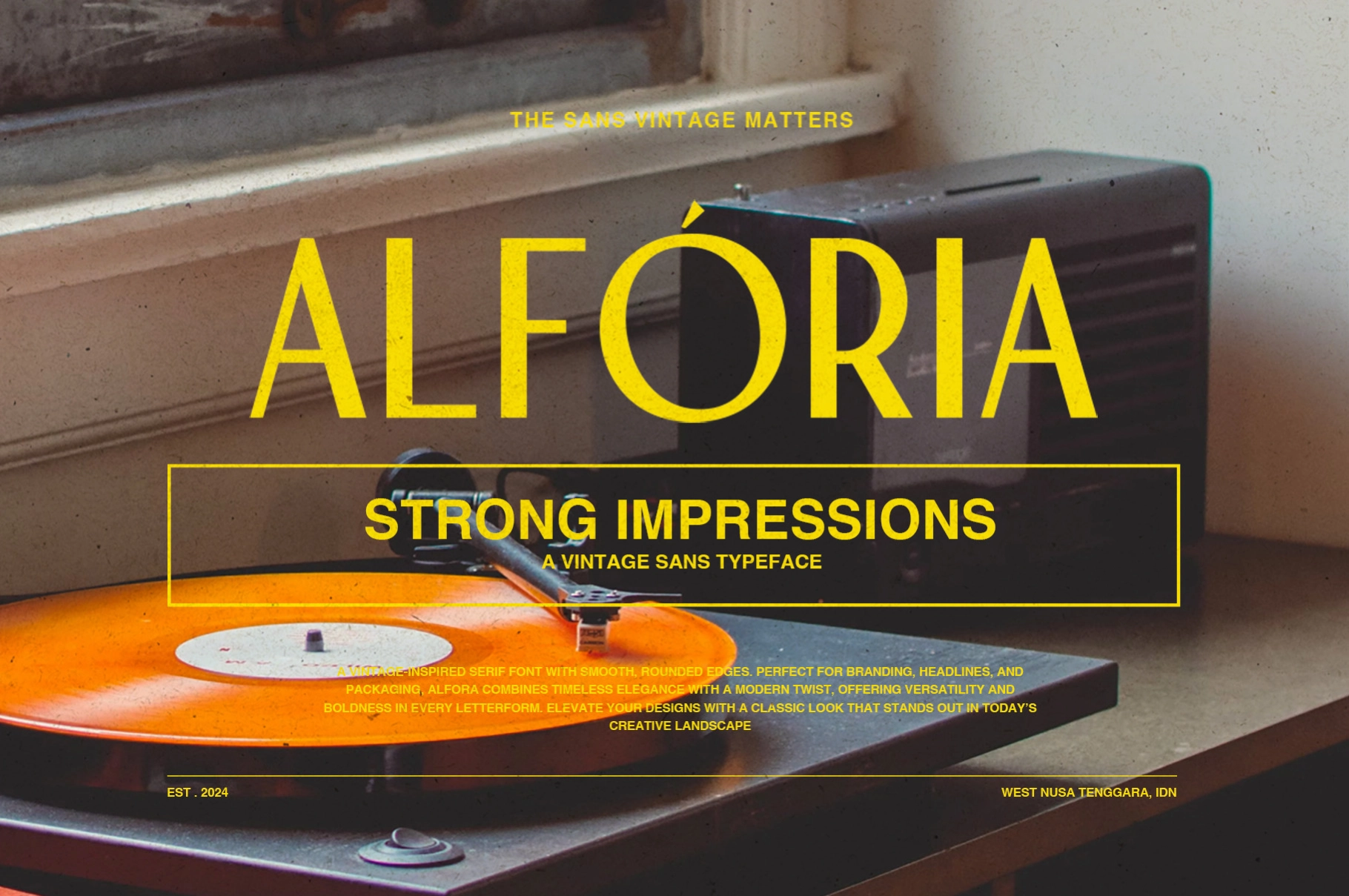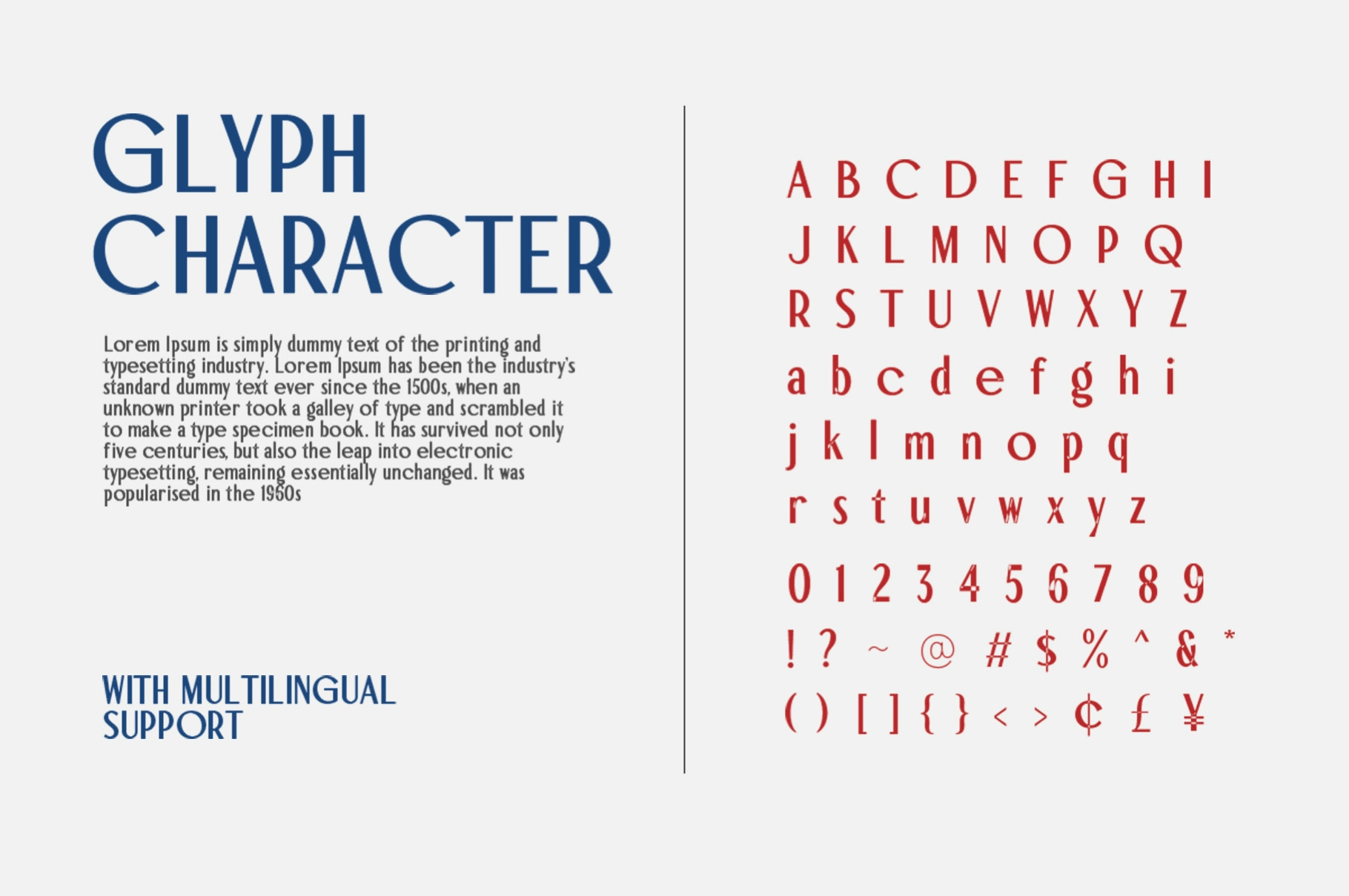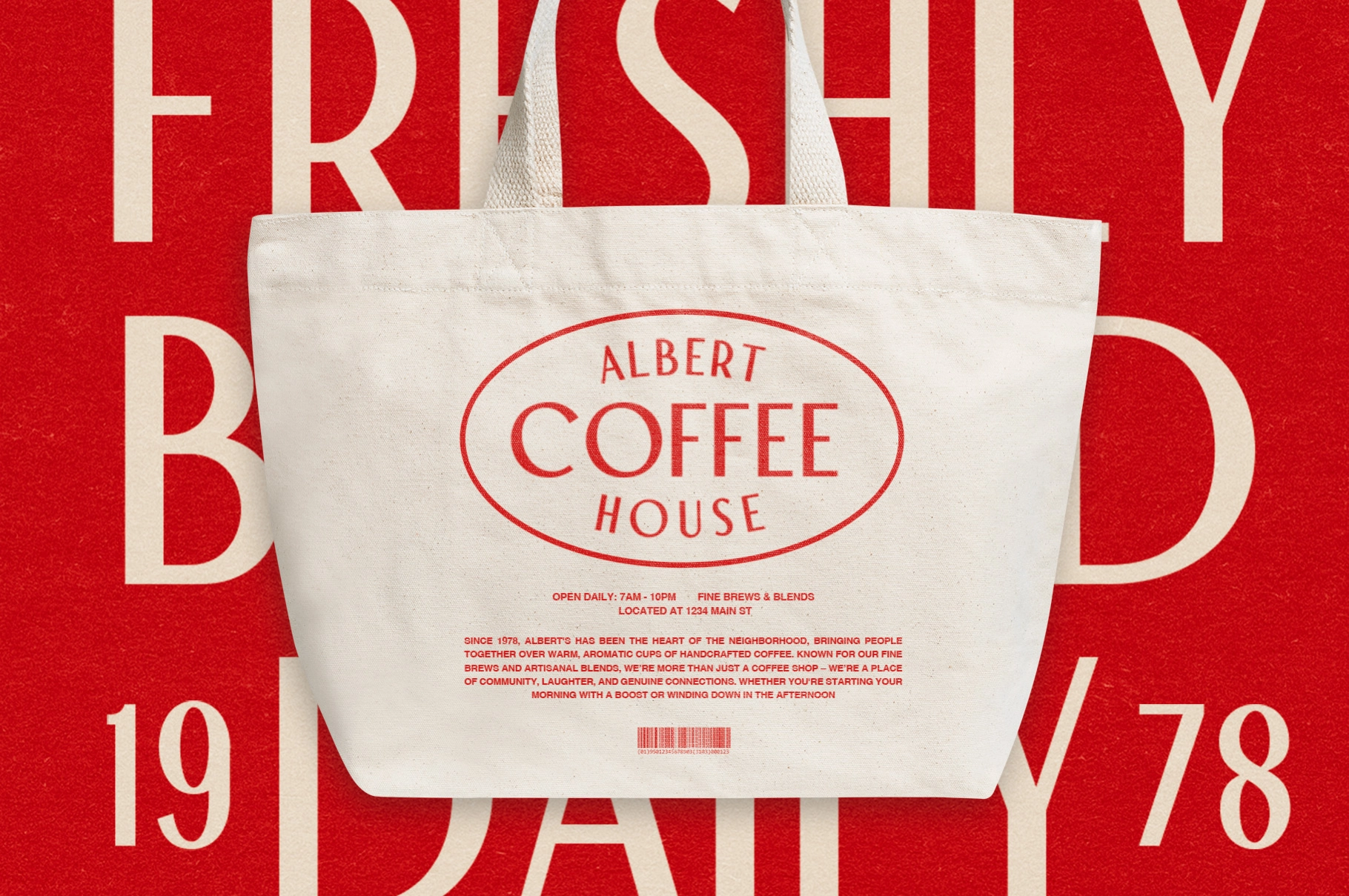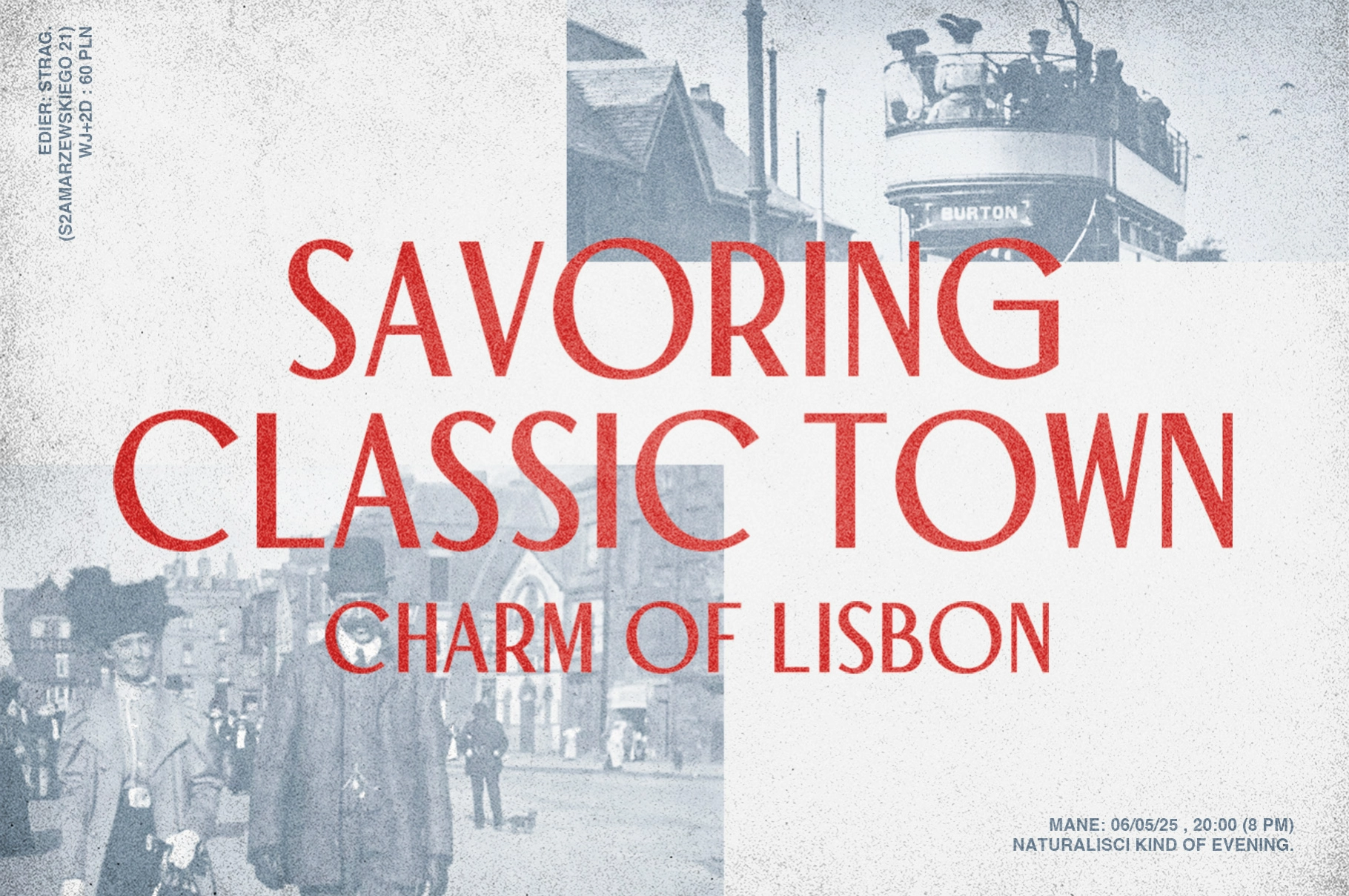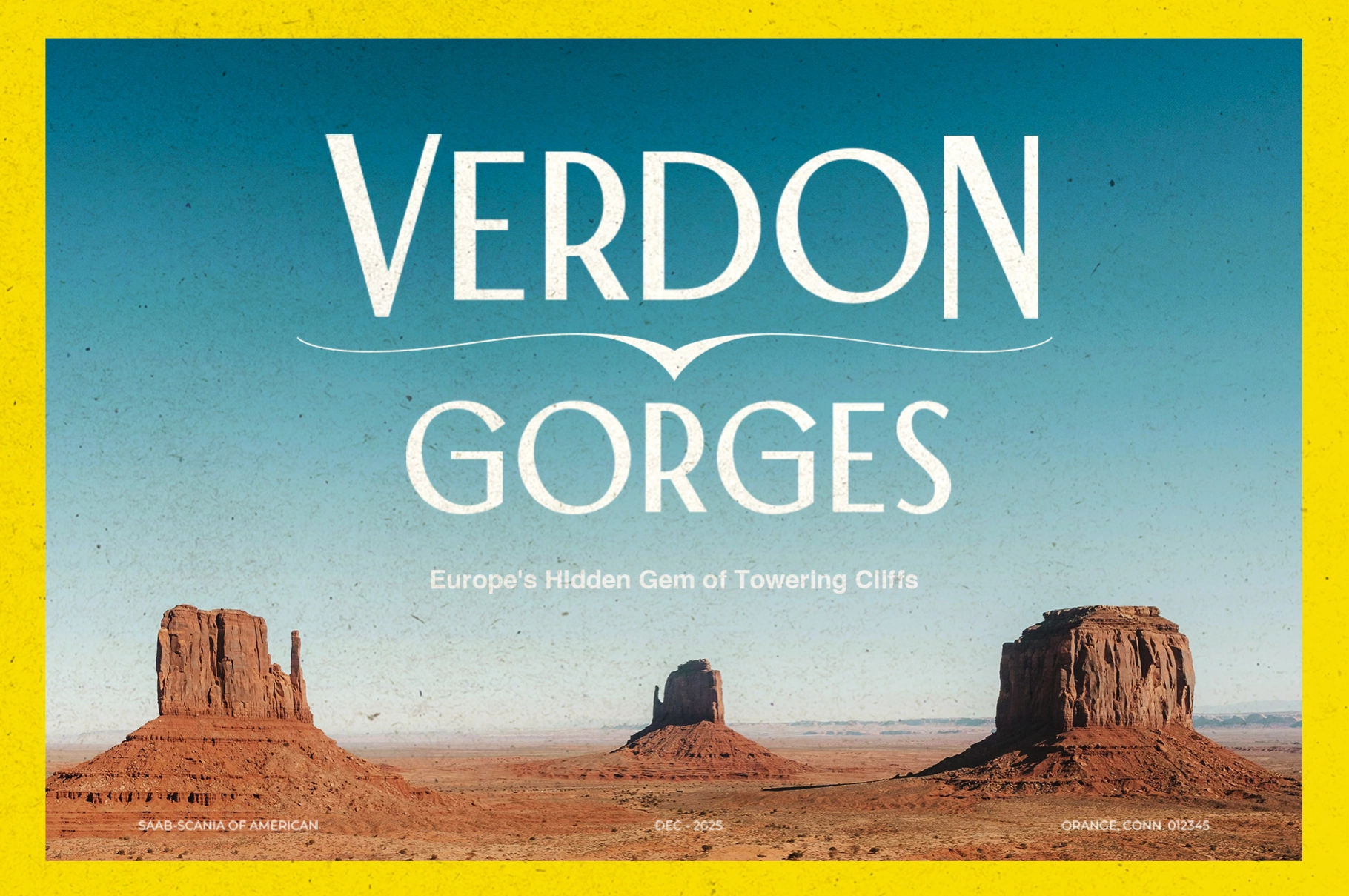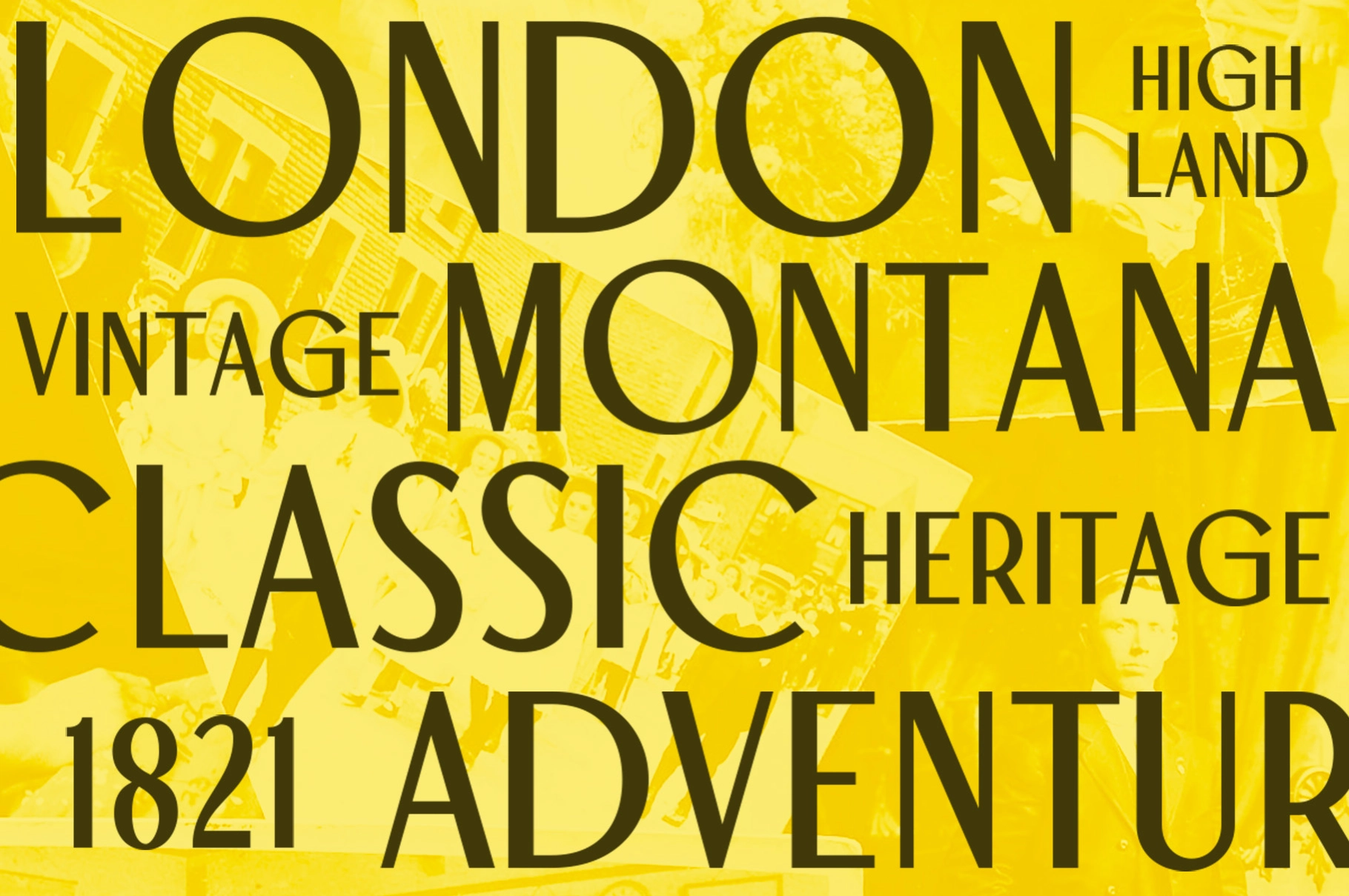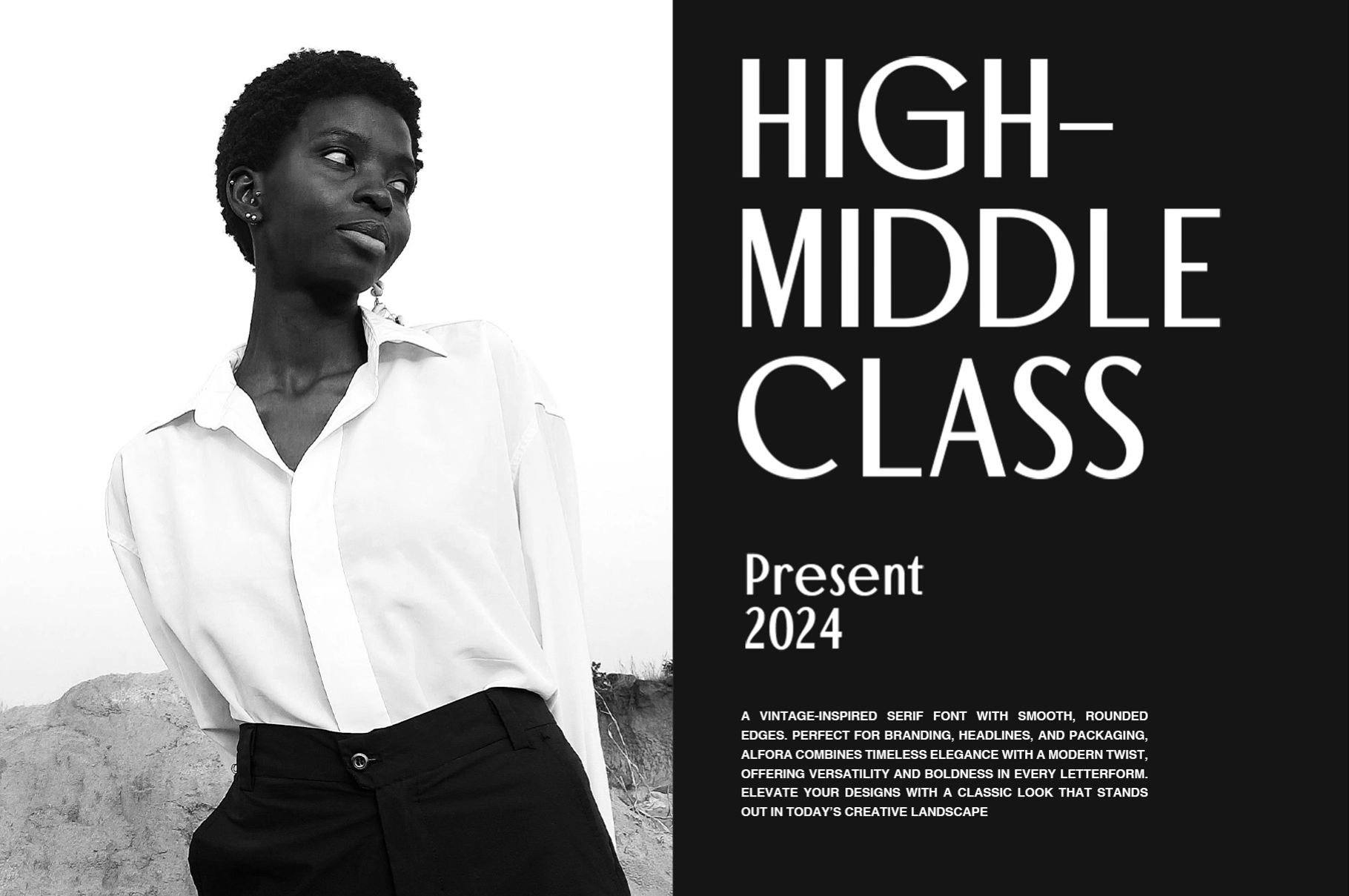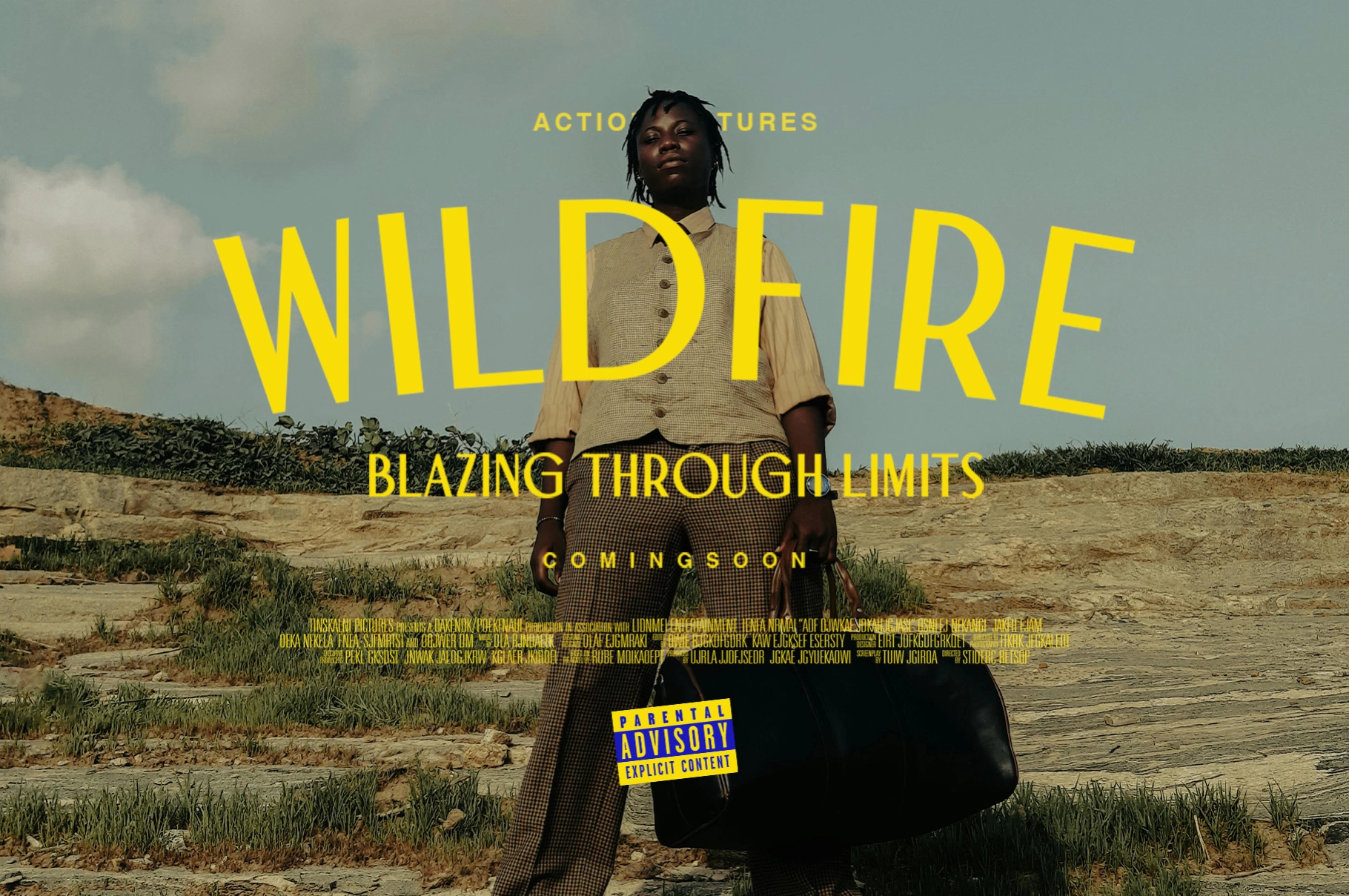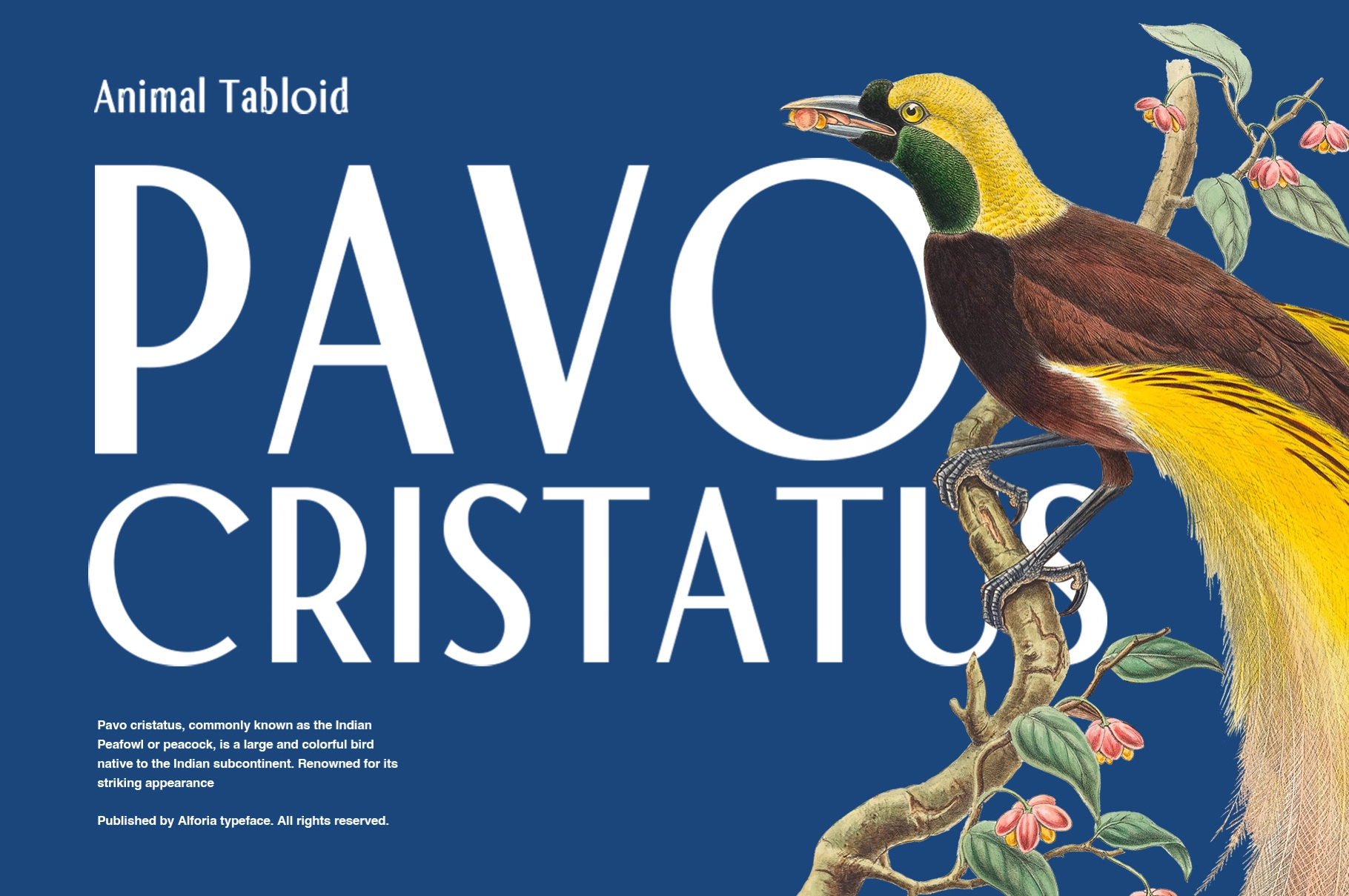
Alforia - Vintage Sans Serif Font
Alforia
This vintage typeface uses tall proportions, narrow letterforms, and clean cuts for a refined old-poster look. The shapes are elegant without getting precious, with enough height and rhythm to carry big headlines, identity work, and editorial layouts.
Alforia is a strong fit for record covers, film posters, café branding, fashion lookbooks, magazine titles, packaging labels, quote graphics, museum campaigns, travel posters, book covers, social media visuals, and more. Its multilingual support also makes it practical for projects with international copy, which is always better than discovering missing accents at 1 a.m.